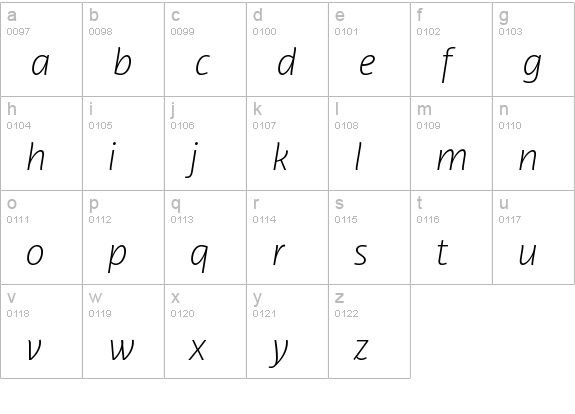
Libertad Thin Italic is a delicate, low-contrast, italic variant in the Libertad typeface family \xE2\x80\x94 well suited to fashion editorial, minimal branding, and high-contrast display.
Libertad Thin Italic font exudes elegance and sophistication with its graceful slanted design. This font effortlessly combines a delicate thin weight with subtle italic styling, creating a sense of refinement and modernity. Perfect for adding a touch of sophistication to any project, from branding to editorial design. The beauty of Libertad Thin Italic font lies in its versatility – it can be used for both headers and body text, making it a valuable addition to any designer's toolkit. Its clean lines and smooth curves lend a sense of delicacy and style to any project. And the best part? Libertad Thin Italic font is completely free to download at FontsMarket.com. So go ahead and elevate your designs with this exquisite typeface that is sure to make a statement.